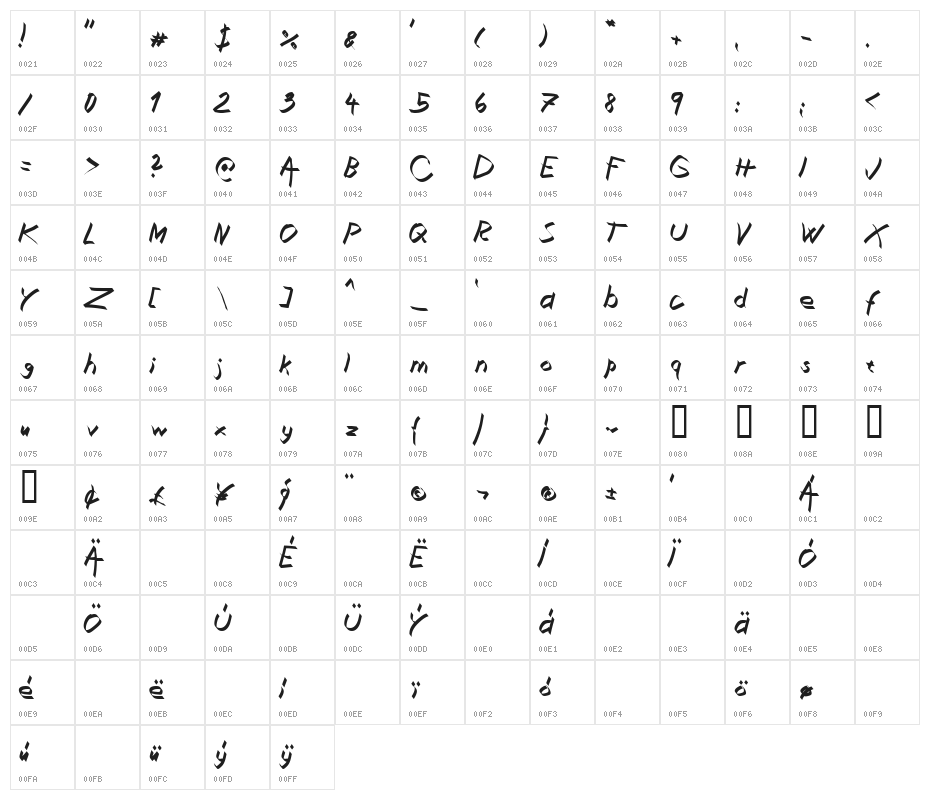
Xaligraphy Italic Font
Xaligraphy Italic Description
This font features a dynamic and expressive style, characterized by sharp, angular strokes and a distinct italic slant. The uppercase letters are bold and commanding, with a sense of movement that suggests speed and energy. The lowercase letters maintain this energetic feel, with a slightly more compact form that complements the uppercase. Numbers and special characters follow the same stylistic cues, ensuring consistency across all glyphs. The overall appearance is modern and edgy, making it suitable for projects that require a bold statement.
| Proposed Projects | Ideal for branding, posters, and any design work that requires a bold, energetic typeface. |